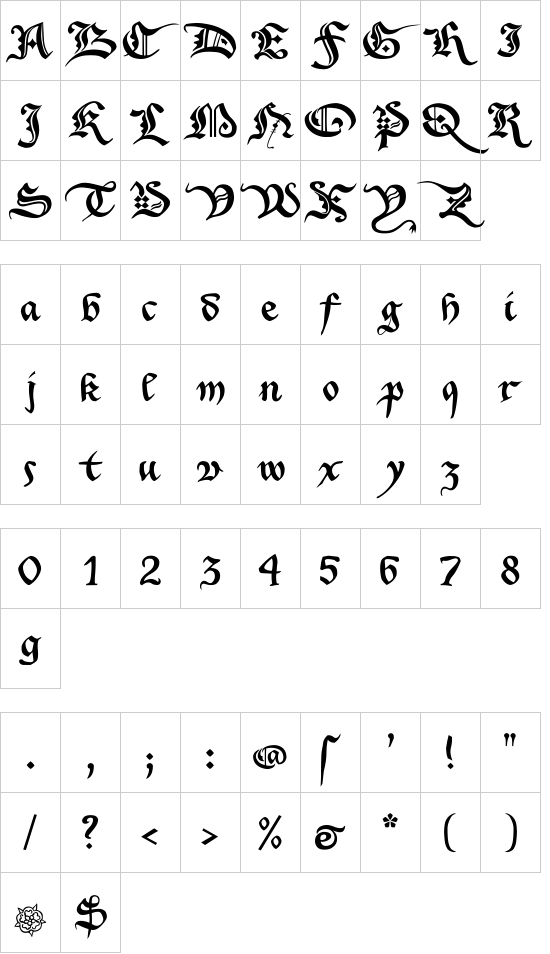
Xenippa is a medieval decorative font built around ornate initial capitals dressed in old-world flourishes. The letterforms borrow from illuminated manuscripts, with curling embellishments, weighty strokes, and an aged feel that suggests hand-inked drop caps from a centuries-old book of legends.
Use the elaborate capitals of Xenippa for fantasy book chapters, certificates, tavern menus, and game art that needs an authentic antique atmosphere. It is free to download as a TrueType file, and you can preview your own text on the page to see how the decorative caps pair with plainer body type before you set them into your design.